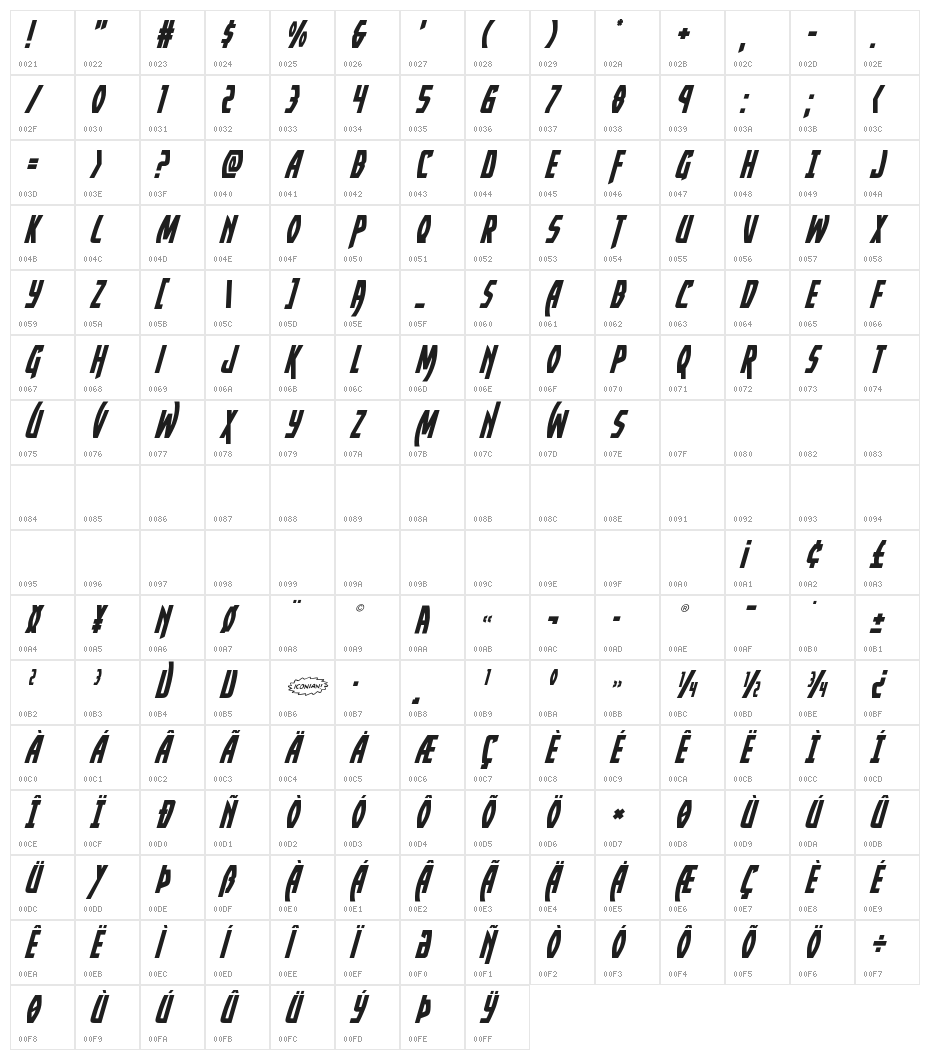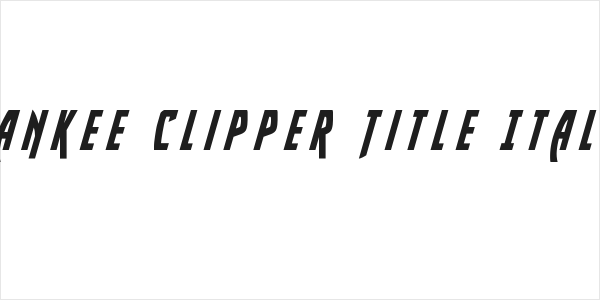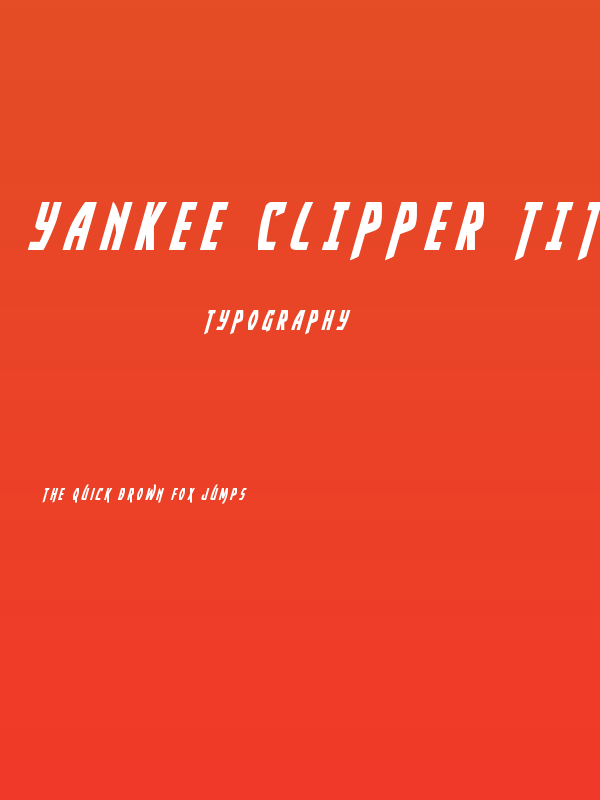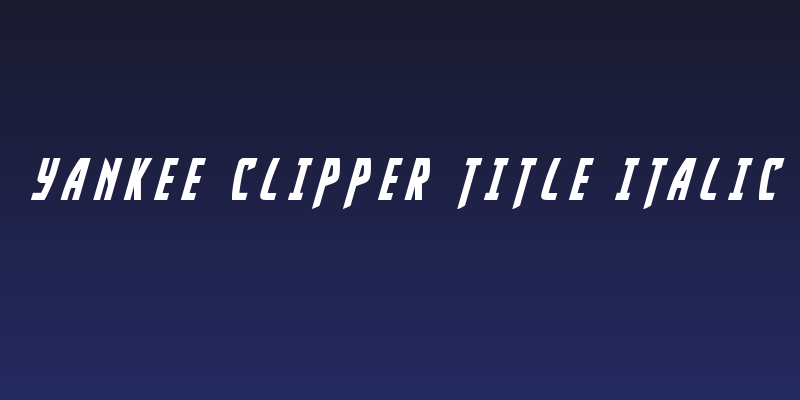
Yankee Clipper Title Italic Font
Yankee Clipper Title Italic Description
This font features a bold, italicized style with sharp, angular edges that convey a sense of speed and movement. The letters are slightly condensed, enhancing their dynamic appearance. The uppercase and lowercase characters maintain a consistent slant, creating a cohesive look across the alphabet. Numbers and special characters follow the same design principles, ensuring uniformity. The overall aesthetic is modern and edgy, making it suitable for projects that require a strong visual impact.
| Proposed Projects | Ideal for sports branding, dynamic posters, video game titles, and any project needing a bold, energetic typeface. |